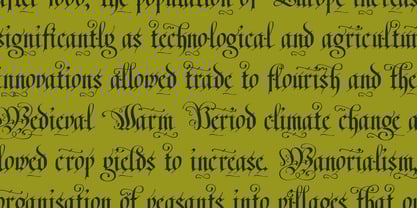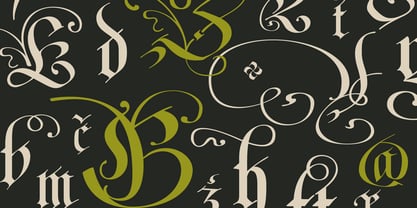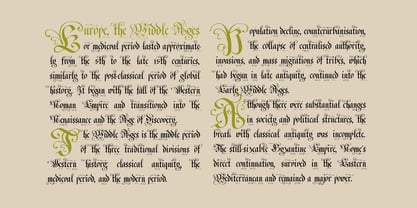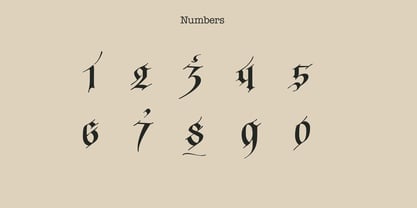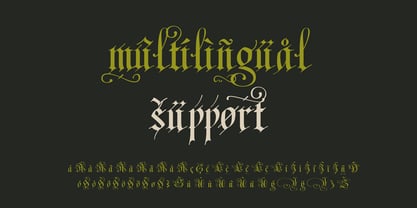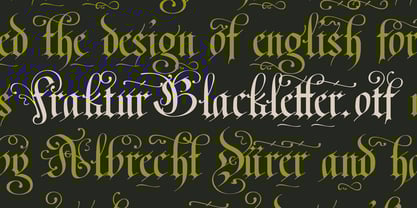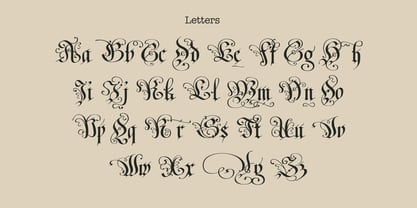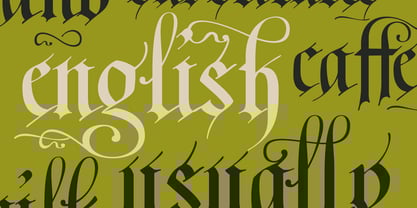
Fraktur Blackletter
by Kaer
I took inspiration for this font in a Copybook by Trautner from Nuremberg, which was written in 1695.
Fraktur is a calligraphic typeface. It is designed such that the beginnings and ends of the individual strokes that make up each letter will be clearly visible, and often emphasized.
* Uppercase and lowercase
* Multilingual support
* Numbers
* Symbols
* Punctuation
* Ligatures